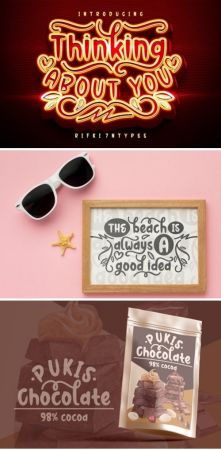
DesignOptimal - Thinking About You Font
DesignOptimal.com - Thinking About You Font
Thinking About You is a spectacular and eye-catching script font with cute ornaments. It will look outstanding in any context, whether it’s being used on busy backgrounds or as a standalone headline!